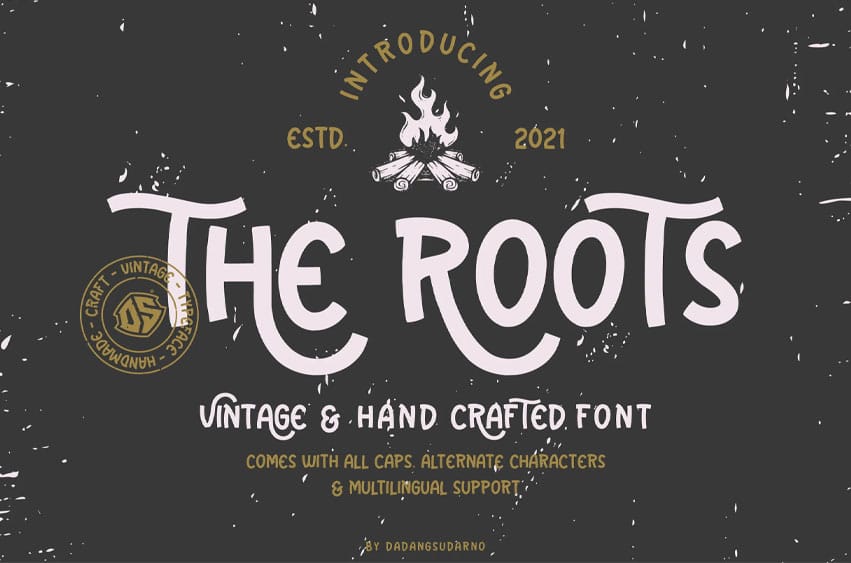
The Roots Font is vintage and hand crafted font. It has a strong image that be inspired by vintage and craft branding. It also has a beautiful spacing between each character, all caps, alternate characters and multilingual accent support.
Easy tweaking shape make the logo, logotype, headline, banner, title and wordmarks more outstanding when it is used.